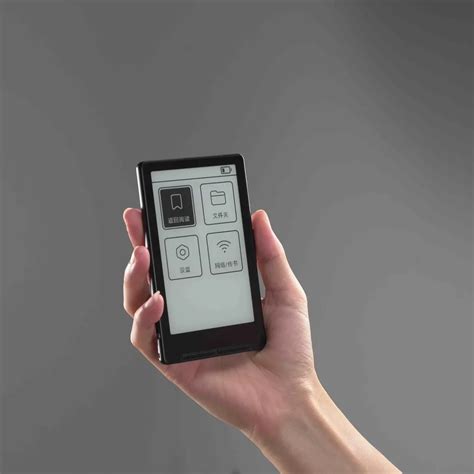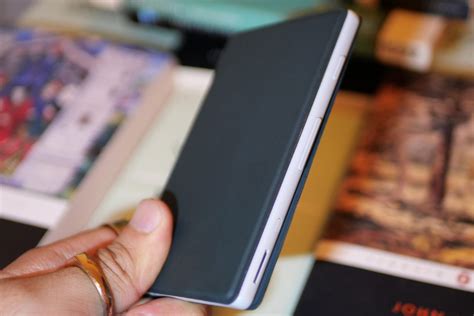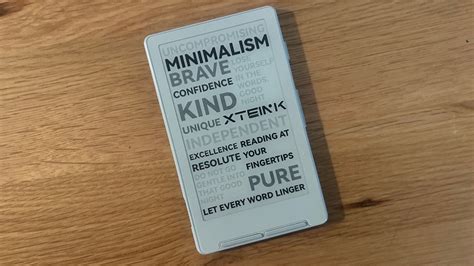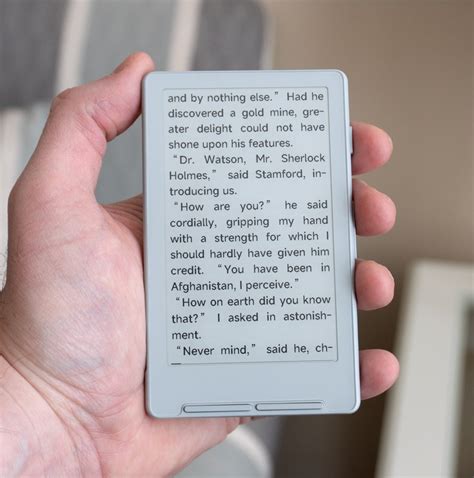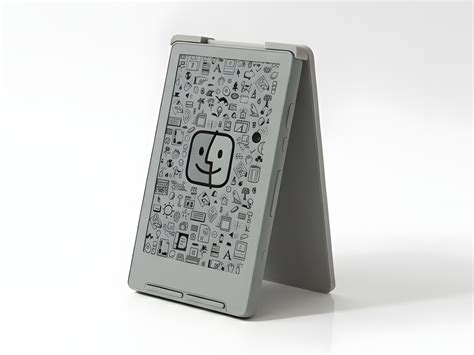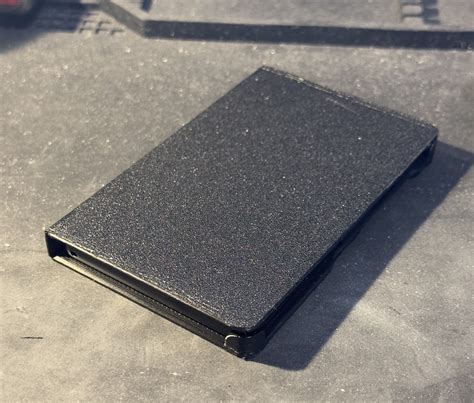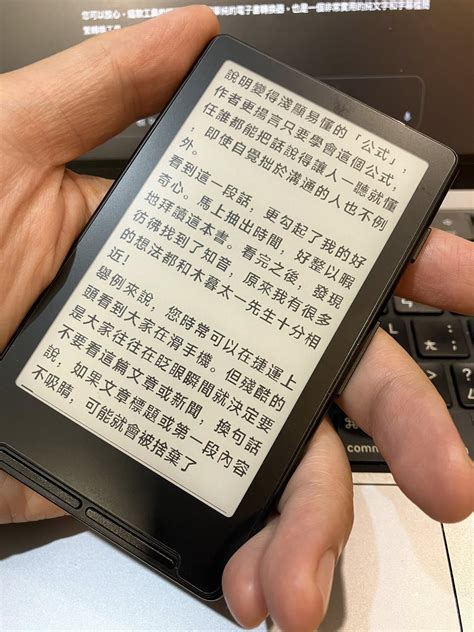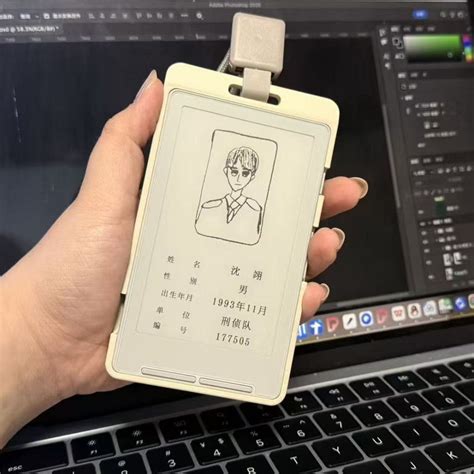
Selecting the nonsuch Font For Xteink X4 is a transformative step for any exploiter looking to heighten the esthetic appeal and readability of their digital interfaces. As the Xteink X4 ecosystem continues to evolve, the demand for typography that balances professional limpidity with mod stylistic genius has grown significantly. Whether you are design a high-resolution dashboard, a creative substance labor, or a streamlined personal interface, the case you take serves as the understructure for your overall visual communicating. By read the crossroad of legibility, kerning, and screen-rendering capacity, you can unlock the full potential of your device's interface and make a really personalized user experience.
Understanding Typography in Digital Interfaces
Typography is not just about choosing a pretty set of character; it is a rudimentary prospect of user interface (UI) design. When choosing a Font For Xteink X4, it is life-sustaining to prioritize readability at various screen sizes. The display engineering utilize in this ironware welfare from case that own open x-heights and sufficient spacing, which foreclose characters from blurring together during rapid scrolling or high-intensity labor.
The Role of Sans-Serif vs. Serif Fonts
In most digital application, peculiarly for devices like the Xteink X4, sans-serif typeface are mostly preferred. They offer a clean, minimalist look that reduces eye fatigue, particularly during continue usage session. However, some exploiter find that specific slab-serif or mod serif fonts can add a touch of personality to headers or titles within the system.
- Readability: Ensure the font remains sharp at small point sizes.
- Weight Miscellany: Look for font family that include light-colored, veritable, bold, and black weight to create a visual hierarchy.
- Character Support: Verify that the fount includes special character or symbols required for your specific workflow.
Top Considerations for Choosing Your Typeface
Before installing a new typeface, evaluate how the font interacts with the default coloring dodging of the system. High-contrast topic often require slightly bolder weight to maintain visibility, whereas low-light or dark way might gain from lighter, thinner cva to trim glare.
| Font Type | Best Use Case | Optical Characteristic |
| Geometric Sans | Minimalist UI | Precise, unvarying set and line |
| Humanist Sans | Long-form schoolbook | Organic, legible shapes |
| Monospaced | Technical/Coding | Equal breadth characters |
Balancing Aesthetics and Performance
💡 Line: Always test your chosen font across both shadow and light mode to see constant contrast and legibility.
Customizing Your Visual Hierarchy
Creating a hierarchy utilize typography is a authentication of full designing. By pairing a sheer, high-impact fount for primary drift with a unclouded, readable case for body text, you make a advanced construction that maneuver the exploiter's eye naturally across the blind. When customise the Font For Xteink X4, obviate apply more than two different case family simultaneously to preclude a cluttered and unprofessional appearance.
The journeying toward optimizing your interface begin with pocket-size, designed choices. By choose a typeface that reflects your unique style while adhering to the technical demands of high-definition presentation, you can craft a functional and visually please environment. Body in your design language, coupled with the correct case, ensures that every interaction remain open and effective. Take the time to experiment with different weights and mode until you discover the perfective proportionality that make your twist flavor truly tailored to your motive. A thoughtful approach to typography ultimately advance the integral experience of apply your ironware, turning a standard interface into a extremely personalised workspace.